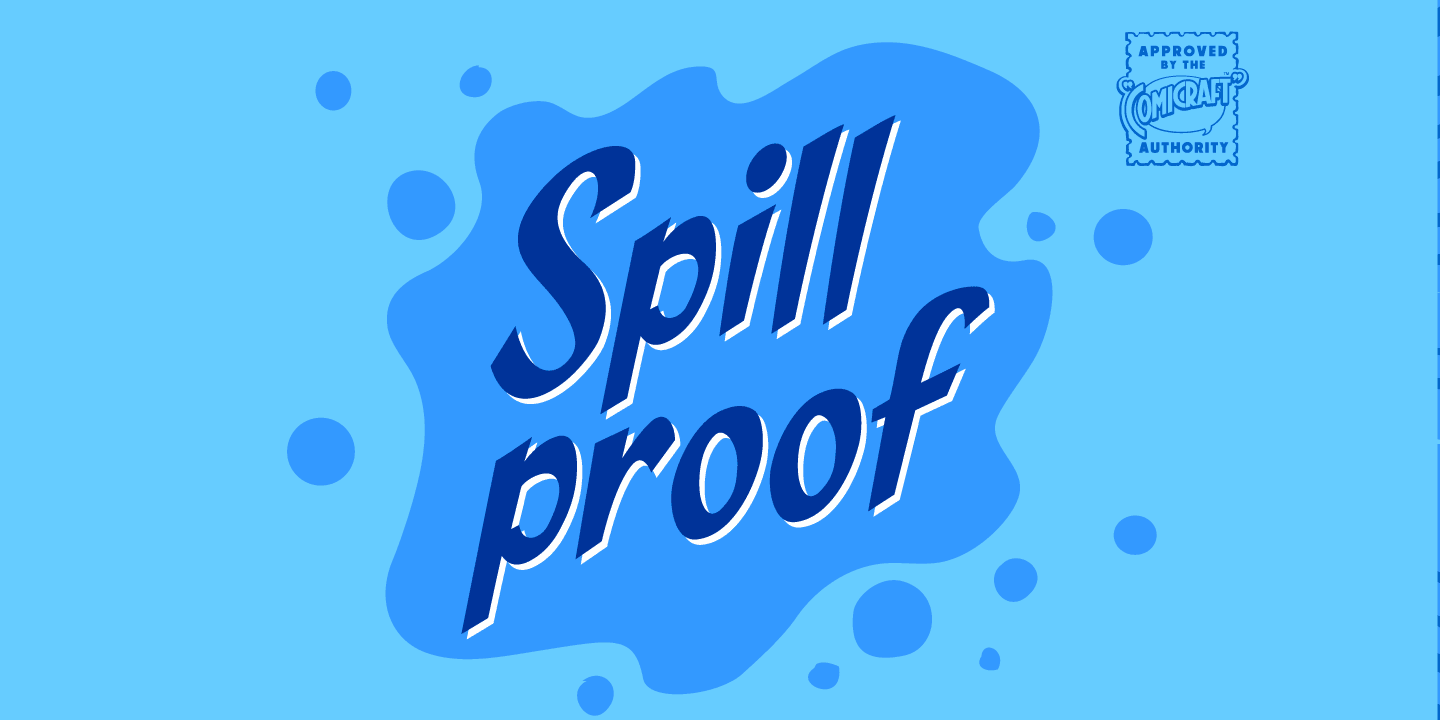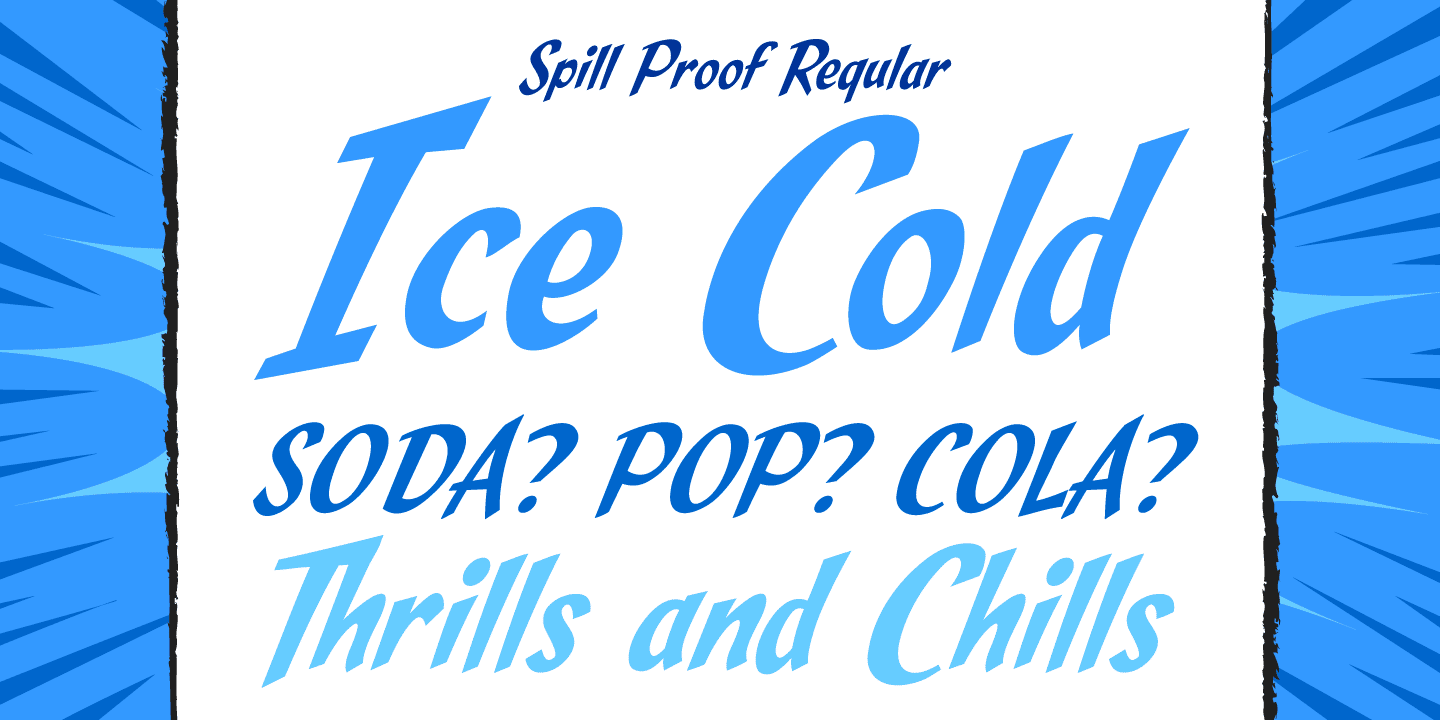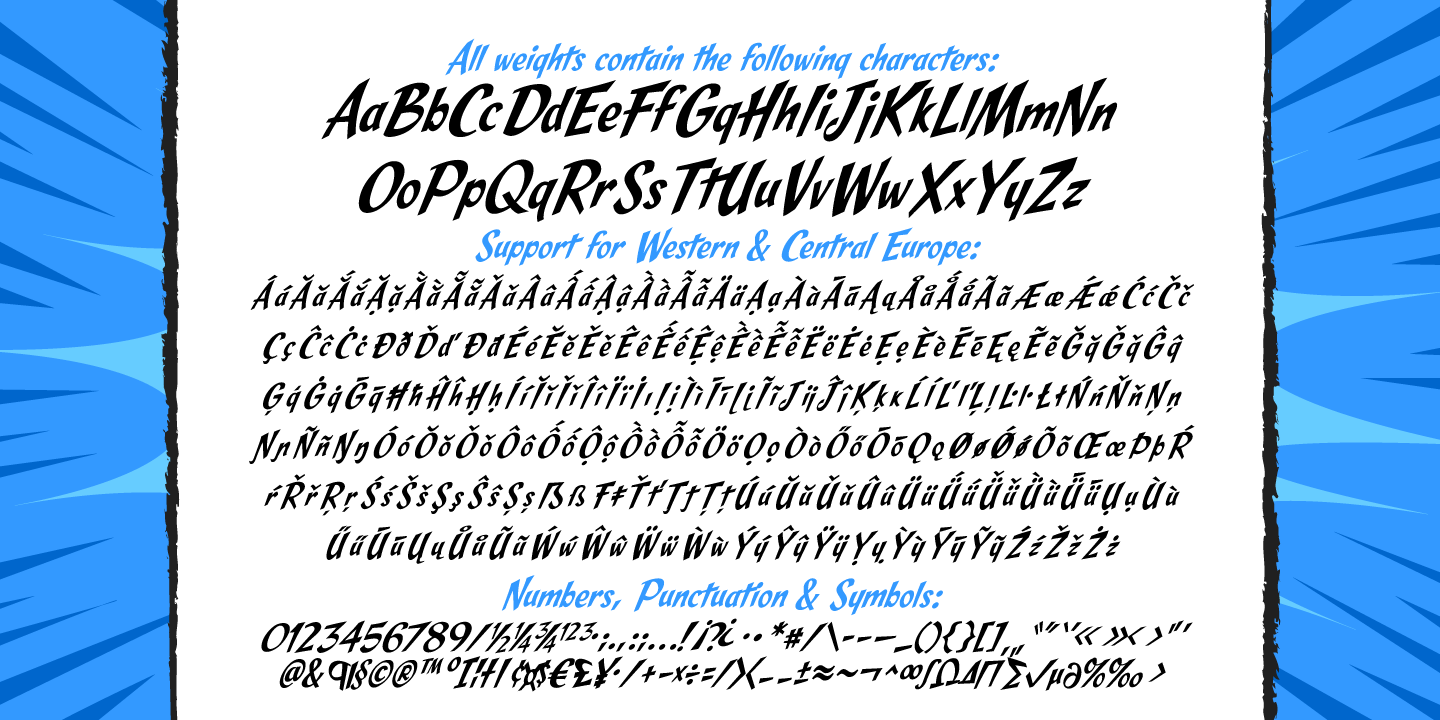
Spill Proof
Font Family by Comicraft Fonts
Put on your top hat, tie up your white tie, brush off your tails and surrender your serifs at the door! We've popped open a bottle of French Champagne for you, but don't worry, because our latest stylishly handsome, devilishly clever offering doesn't just offer thrills and chills, it's also Spillproof.
So step out and breathe an atmosphere that simply reeks with class and distinction, What a swell font for party invitations, soirees, nightclubs and weddings this is!